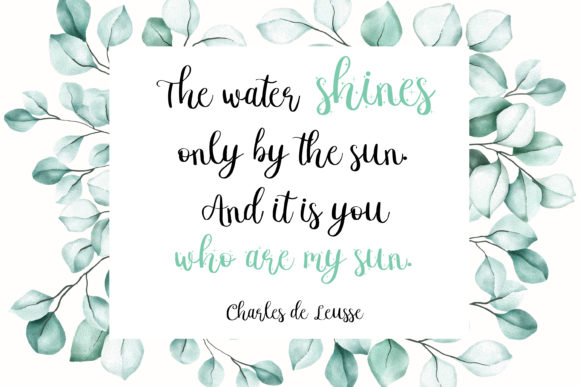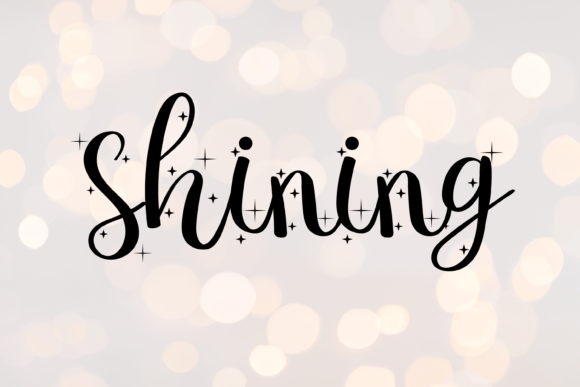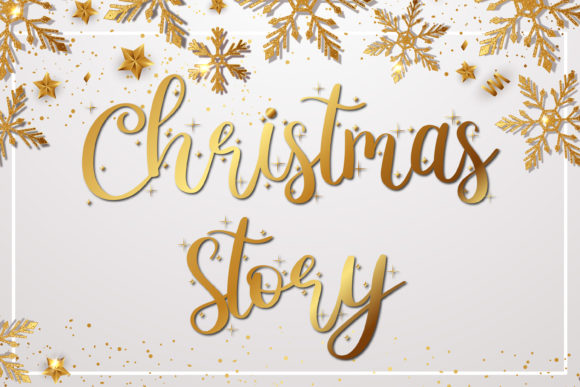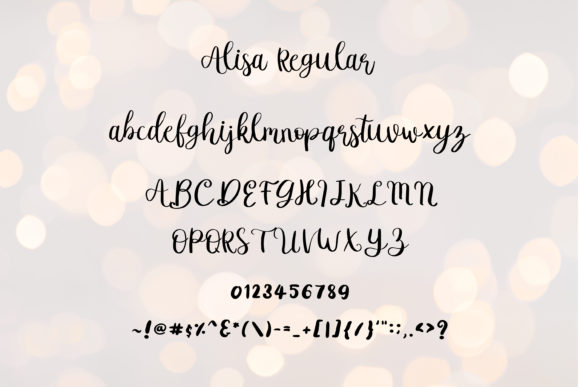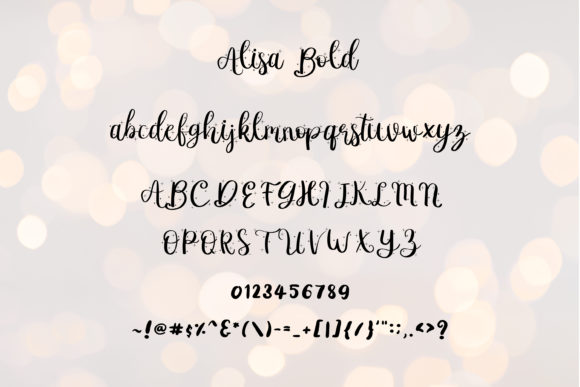
Introducing Alisa Font: The Perfect Handwritten Touch for Your Designs
Are you looking for a font that adds a touch of elegance and sophistication to your designs? Look no further than Alisa Font, an incredibly distinct, delicate, and timeless handwritten font. With its unique charm and versatility, Alisa Font is perfect for a wide range of design projects, from wedding invitations and thank you cards to quotes, greeting cards, logos, business cards, and more.
What Makes Alisa Font So Special?
Alisa Font stands out from the crowd with its delicate and intricate handwriting style. Each letter is carefully crafted to create a sense of fluidity and movement, making it perfect for designs that require a personal touch. The font’s timeless quality ensures that it will never go out of style, making it a valuable addition to any designer’s collection.
Wedding invitations, save-the-date cards, and thank you notes are just a few examples of where Alisa Font shines. Its elegant and refined appearance adds a touch of sophistication to any wedding or event design. The font’s delicate nature also makes it perfect for creating beautiful and intricate designs that will leave a lasting impression on your guests.
Alisa Font is not just limited to wedding and event designs. Its versatility makes it perfect for a wide range of projects, including:
- Quotes and typography designs
- Business cards and stationery
Why Designers and Crafters Love Alisa Font
Designers and crafters love Alisa Font for its unique and distinctive appearance. The font’s delicate nature makes it perfect for creating beautiful and intricate designs that stand out from the crowd. Additionally, Alisa Font is incredibly easy to use, making it perfect for designers of all skill levels.
Tips for Using Alisa Font in Your Designs
Here are a few tips for using Alisa Font in your designs:
- Pair Alisa Font with a bold font for a striking contrast
- Use Alisa Font in combination with watercolor or floral designs for a romantic look
- Use Alisa Font to create beautiful and intricate designs that tell a story
In conclusion, Alisa Font is a truly unique and versatile handwritten font that adds a touch of elegance and sophistication to any design. With its delicate and intricate handwriting style, Alisa Font is perfect for a wide range of design projects, from wedding invitations and event designs to quotes, greeting cards, logos, and more. Whether you’re a designer or crafter, Alisa Font is a valuable addition to your collection.